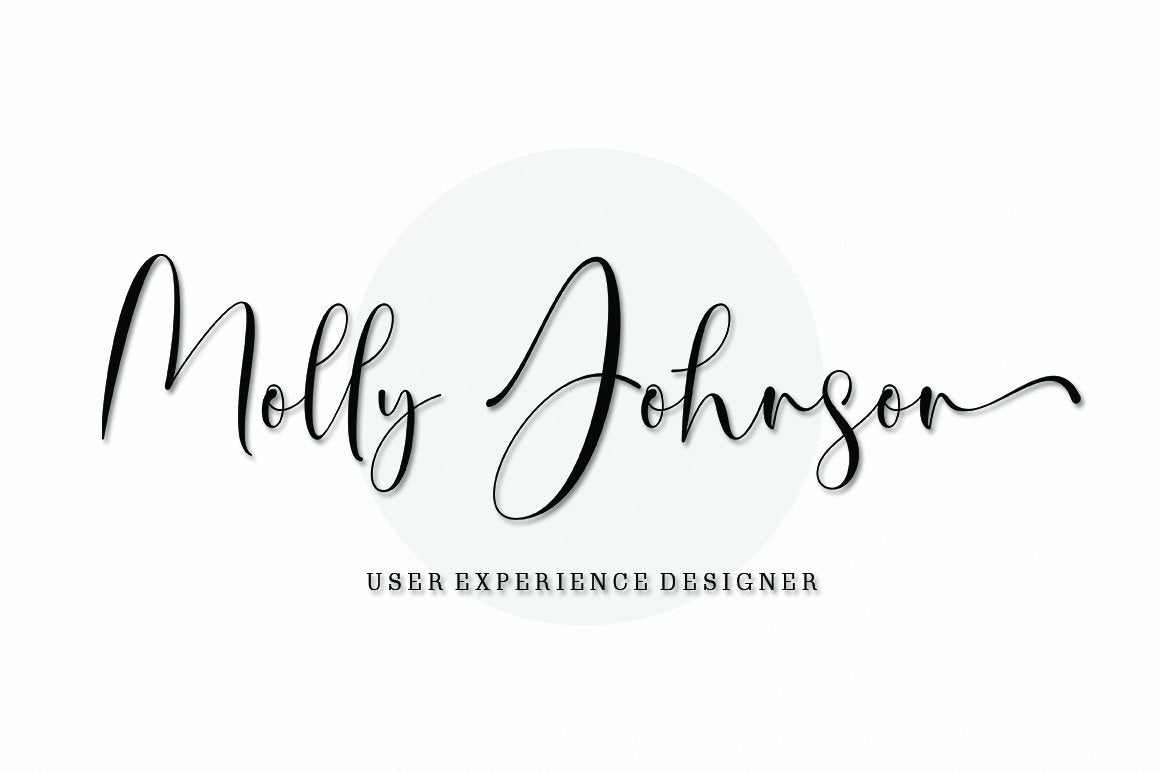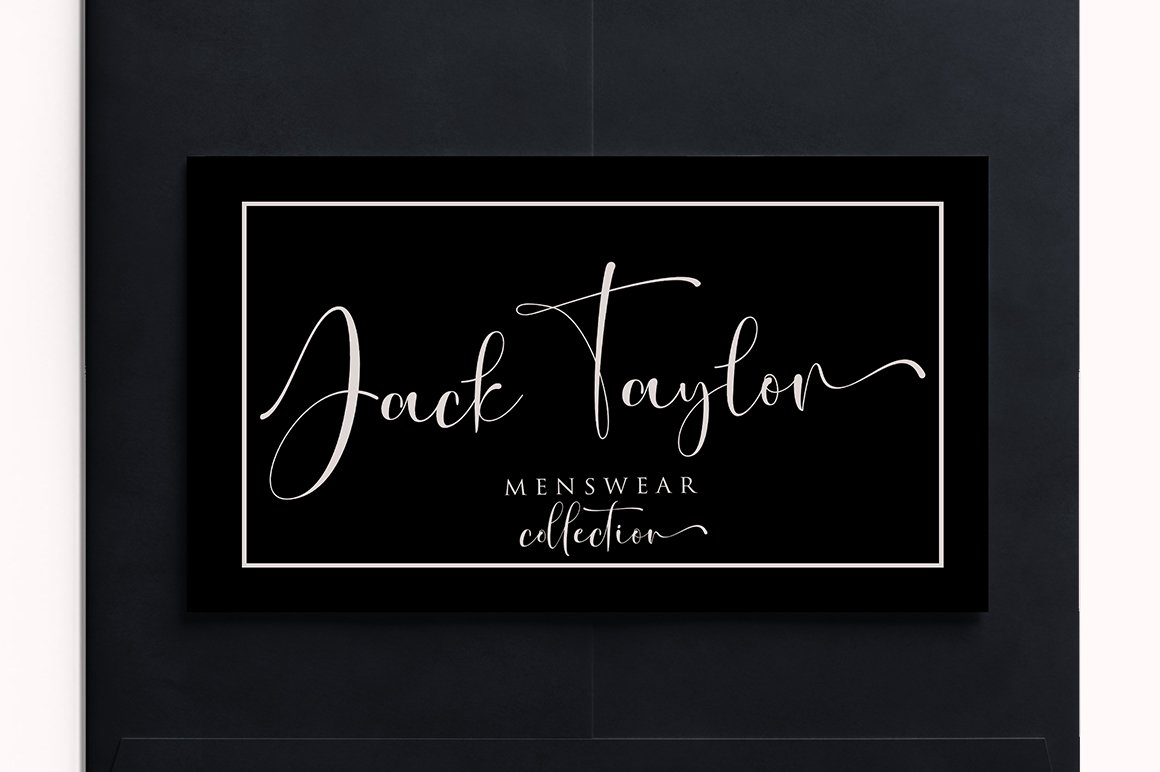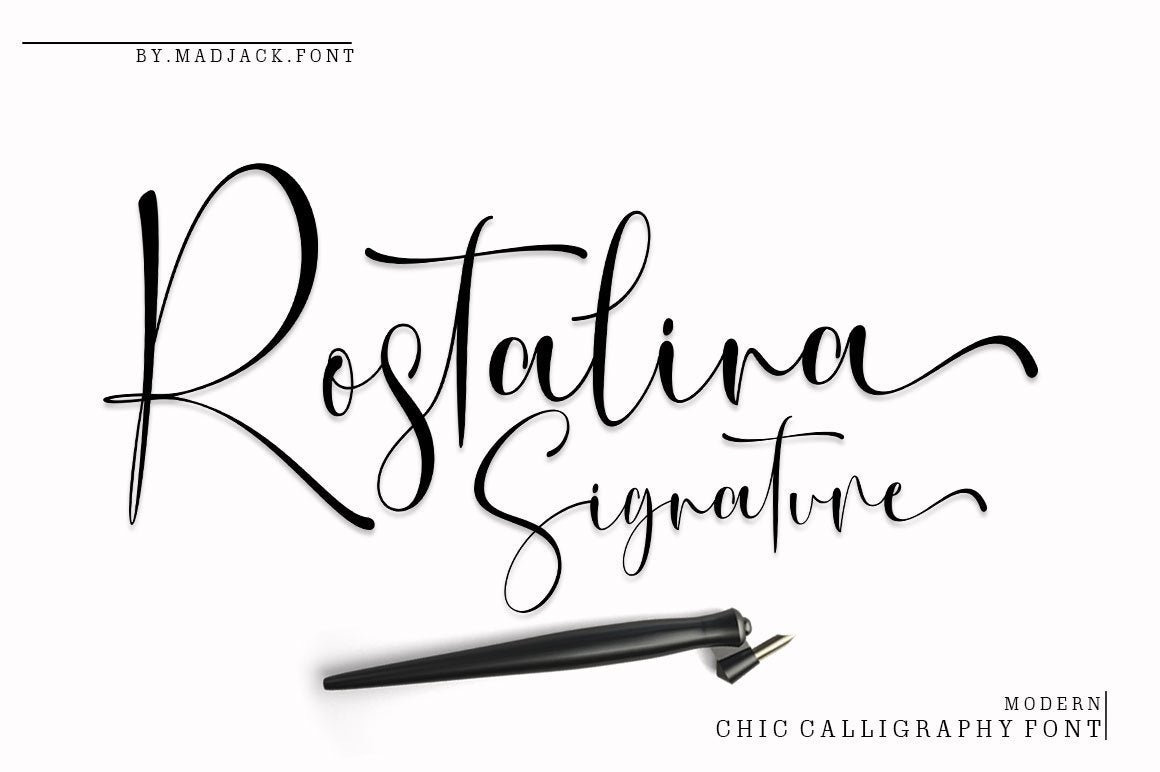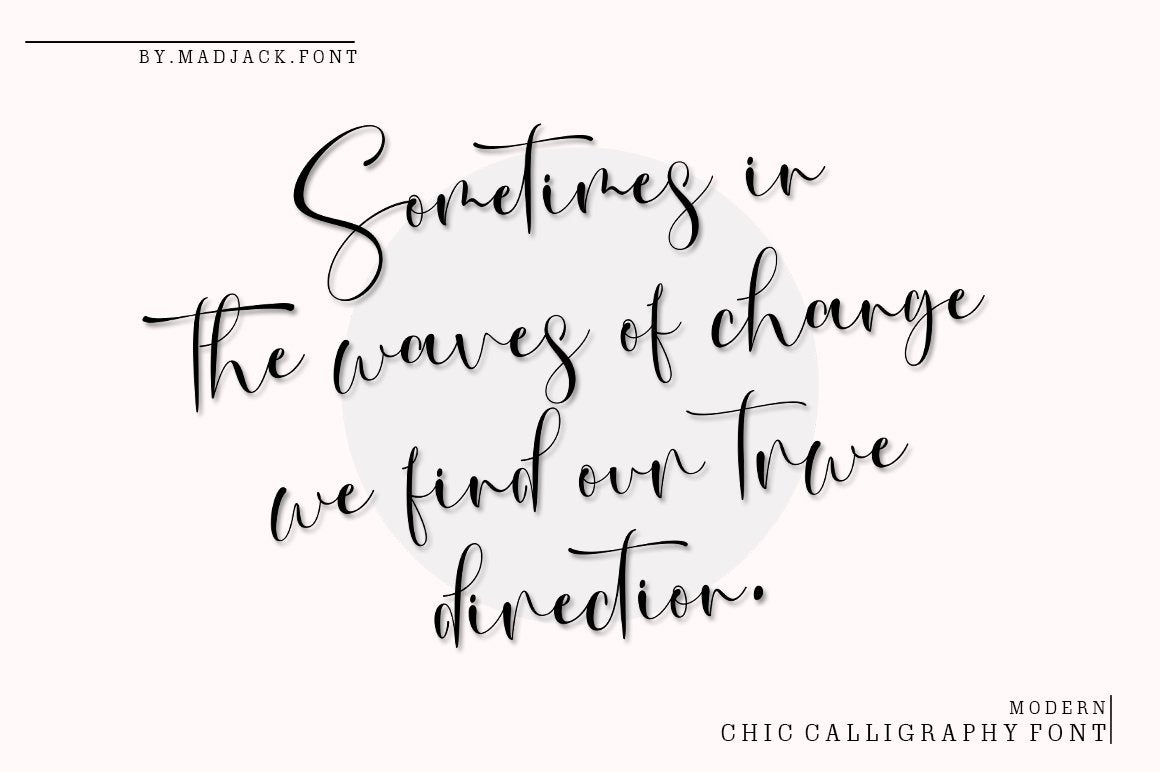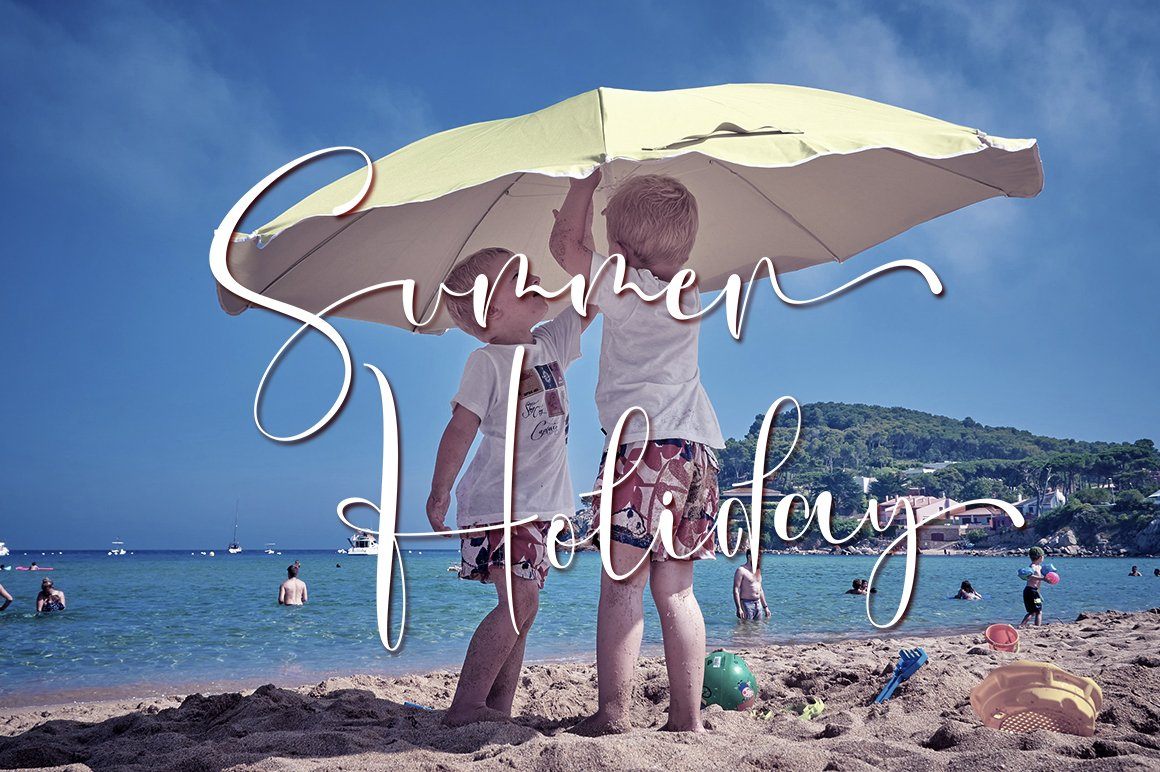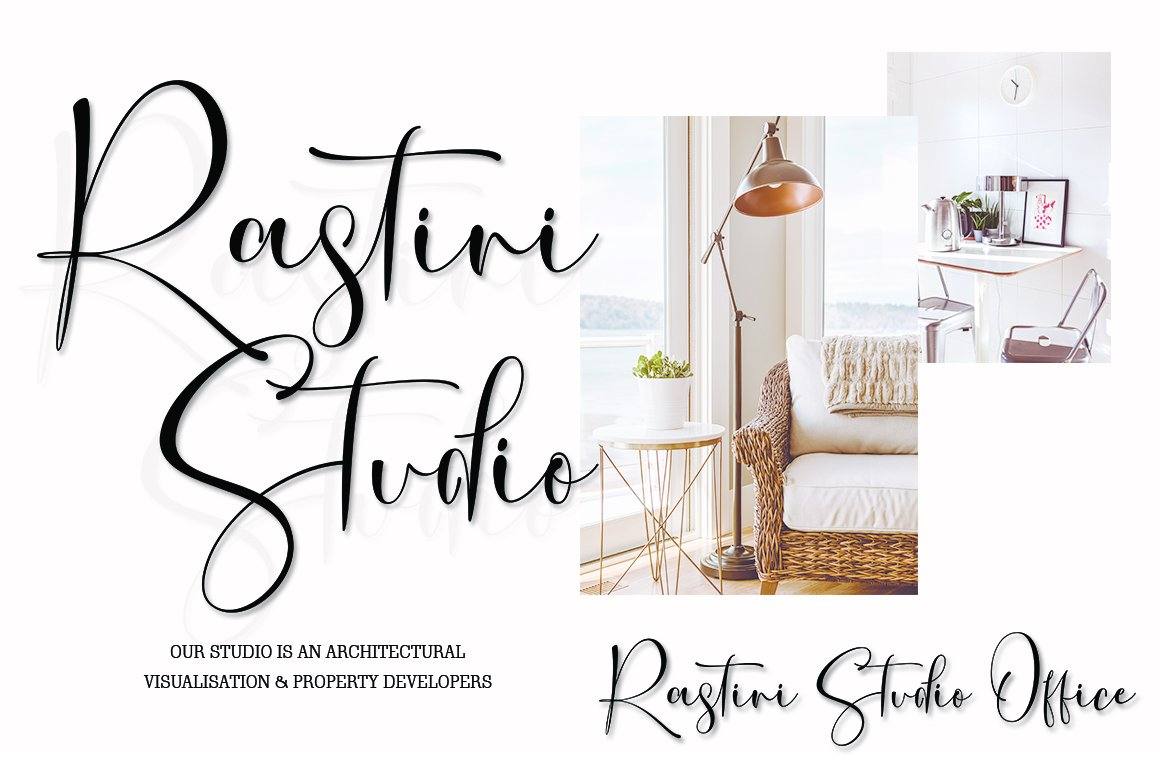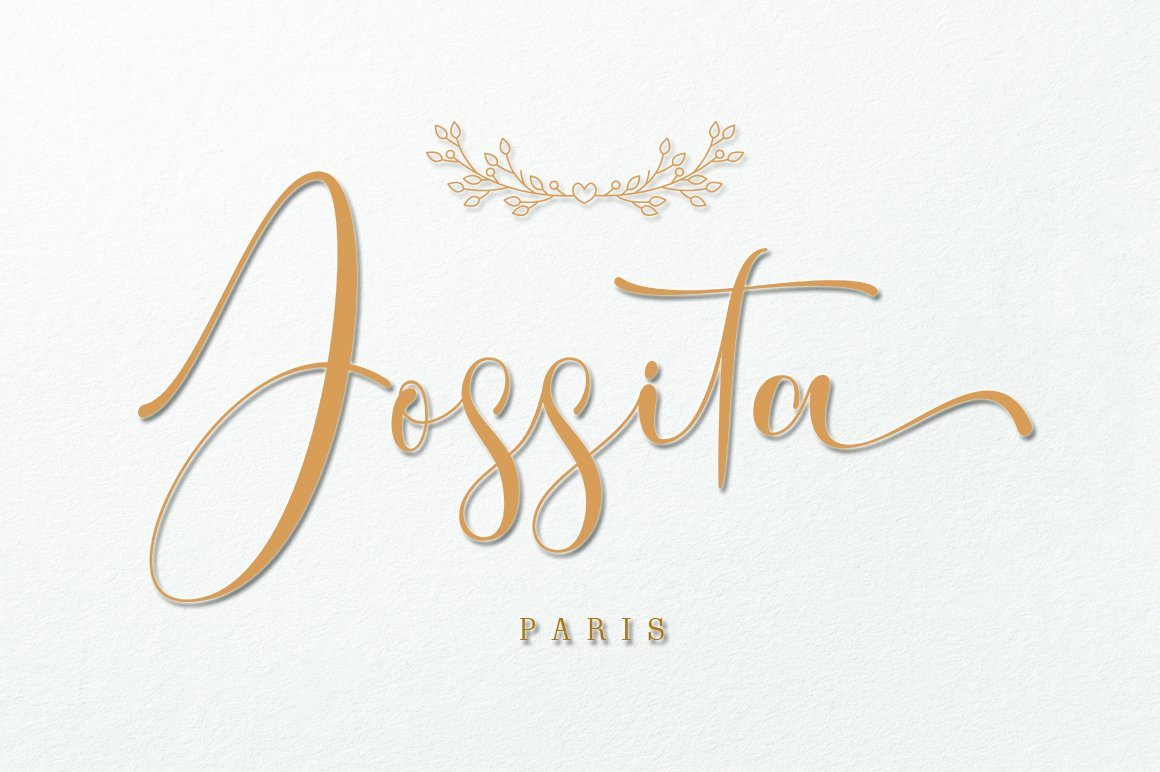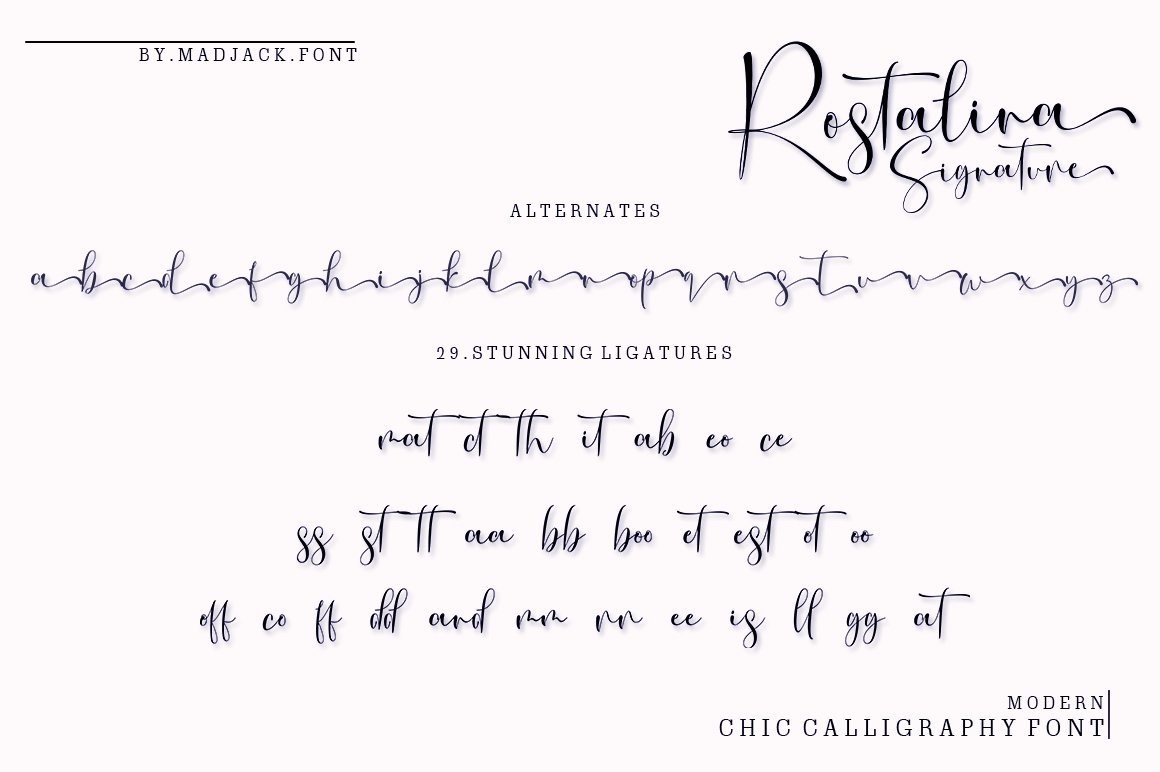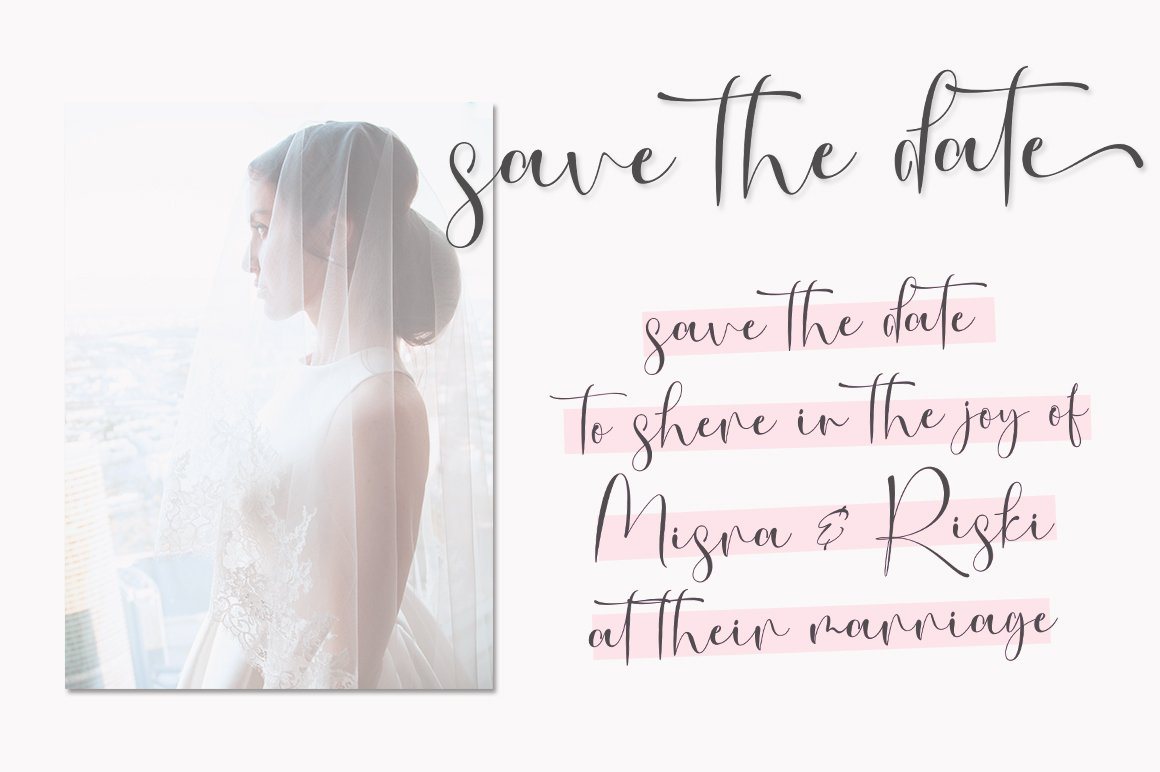
Rostalina Signature Script
About Rostalina Signature Script
Rostalina Signature is a unique, elegant and modern handwritten font. which looks like a signature, this font is intentionally made with unique and alternating ligatures. This handcrafted style makes it perfect for use in all your design projects be it logos, labels, packaging designs, blog titles, posters, wedding designs, social media posts, Instagram designs, etc. What’s included? Rostalina Signature OTF Rostalina Signature TTF Multiple Language Support: ŠÀÁÂÃÄÅÆÇÈÉÊËÌÍÎÏŸŽÐÑÒÓÔÕÖØÙÚÛÜÝßàáâãäåæçèéêëìíîïñòóôõöøùúûêýÿŒœšž I hope you enjoy this font. If you have any questions, feel free to give me a message 🙂 Thank you for your purchase!